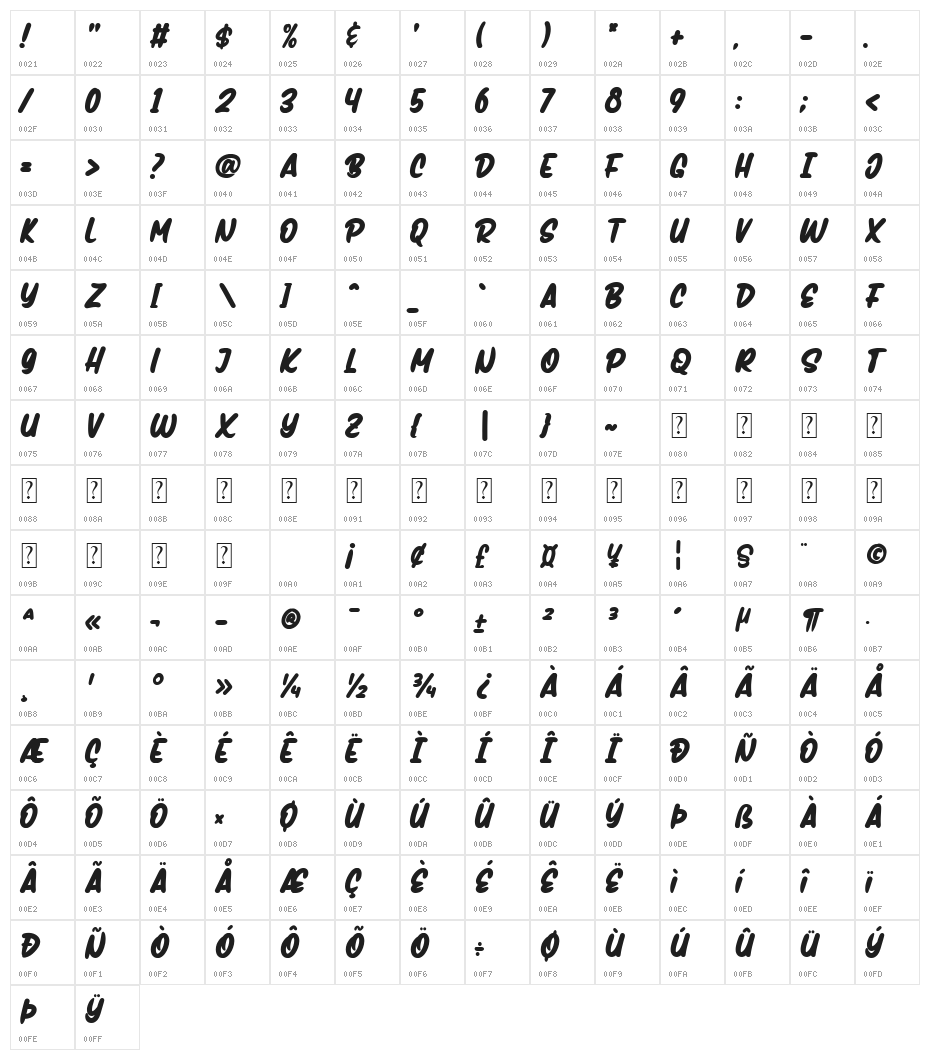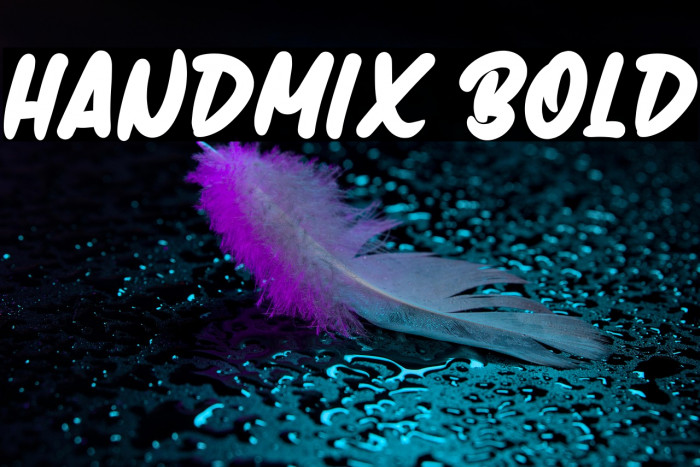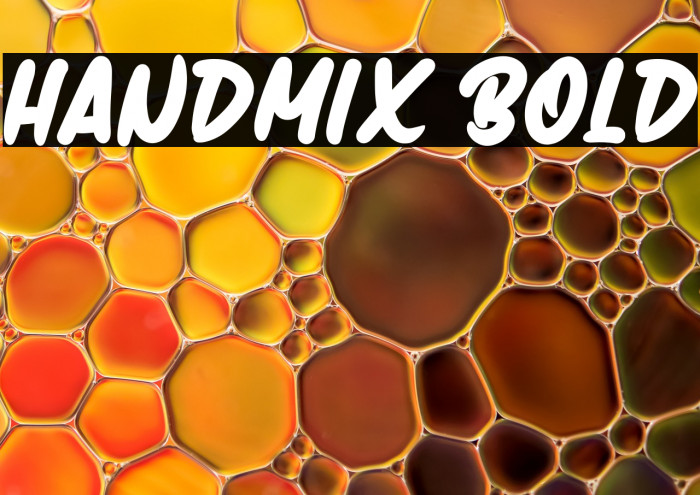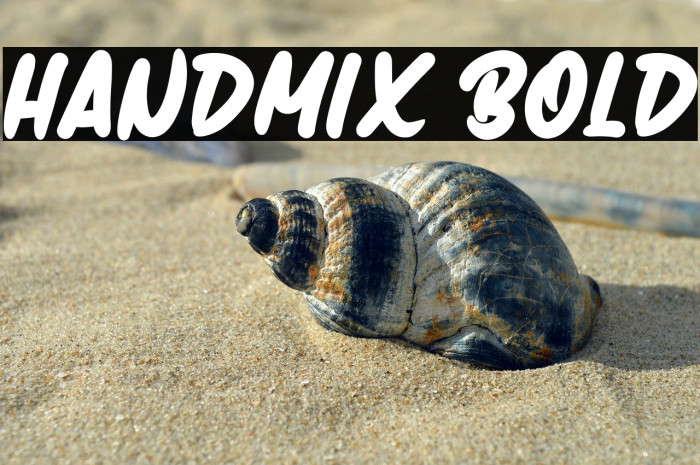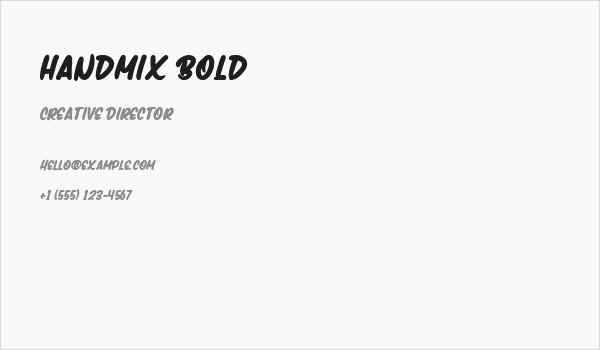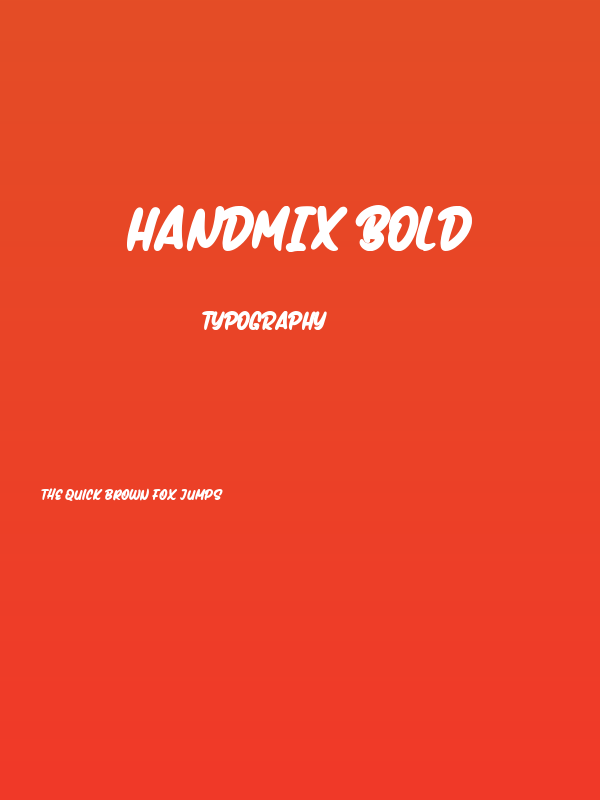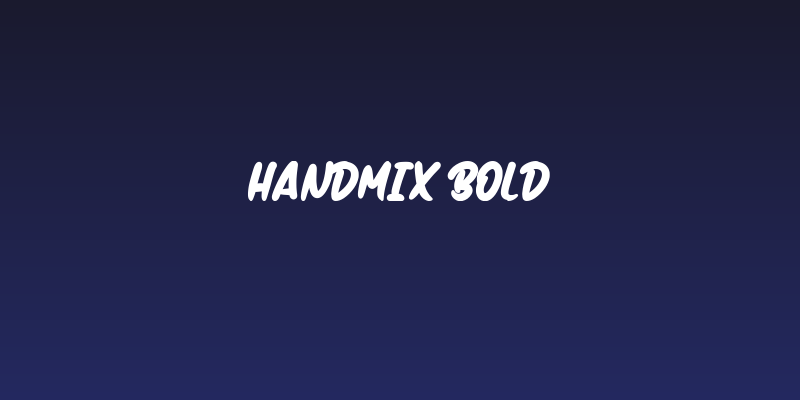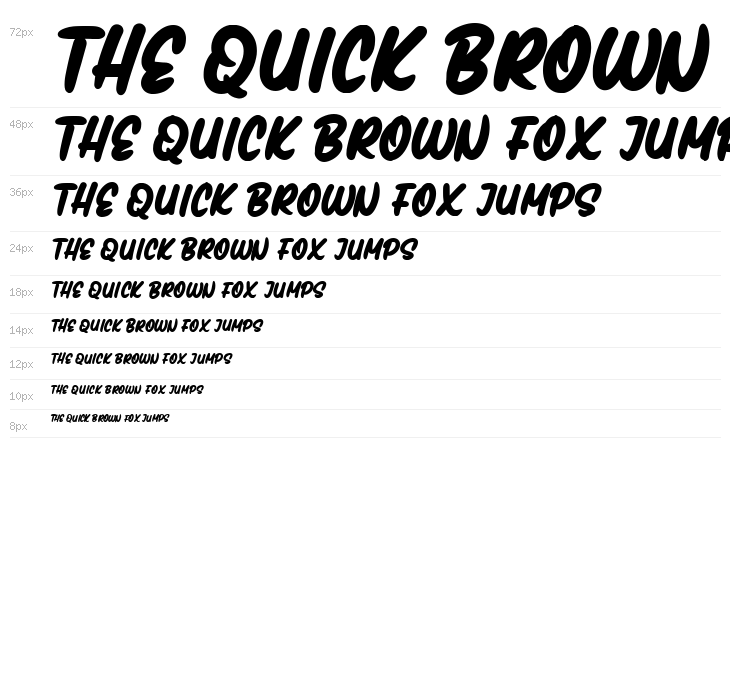
Handmix Bold Font
Handmix Bold Description
This font features a bold and dynamic handwritten style, characterized by its thick, rounded strokes and playful curves. The letters are closely spaced, creating a sense of energy and movement. Its boldness makes it stand out, while the rounded edges give it a friendly and approachable feel. The numbers and special characters maintain the same lively aesthetic, ensuring consistency across all text elements. This font is perfect for projects that require a personal touch or a sense of fun and creativity.
| Overall Style | Playful, Energetic |
| Proposed Projects | Ideal for greeting cards, playful branding, children's books, and creative posters. |